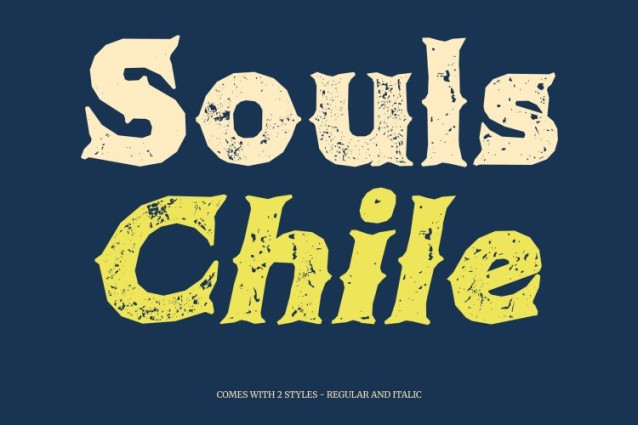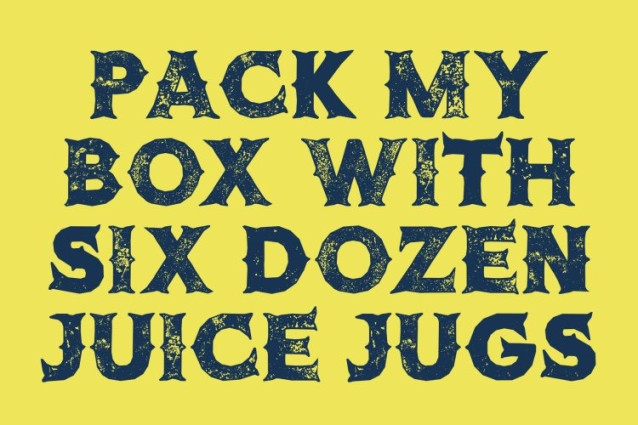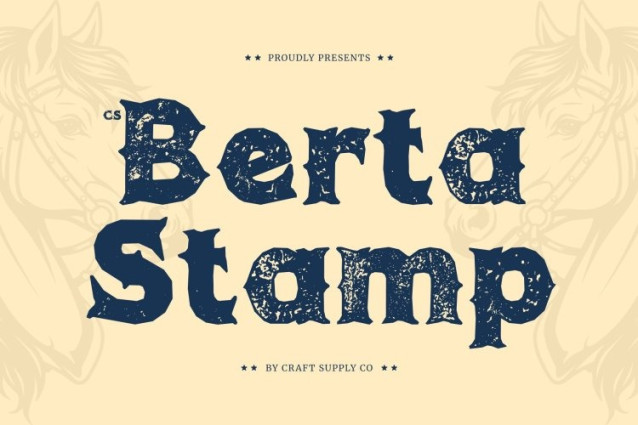
CS Berta Stamp Font
CS Berta Stamp Font This preserves the classic Tuscan style while adding a handcrafted, stamped texture that enhances its retro aesthetic. The sharp, decorative serifs and cross-line details now carry subtle irregularities and distressed edges, giving the font the feel of traditional woodblock or letterpress printing.
Textured Letterforms for Artistic Impact
Each glyph displays a slightly worn, inked texture, creating depth and a tactile quality reminiscent of vintage signage and old posters. The bold shapes remain commanding, while the stamp effect adds character, authenticity, and a handcrafted flair that makes the font feel both historic and visually lively.
Ideal for Retro, Vintage, and Nostalgic Projects
This is perfect for posters, branding, packaging, signage, and editorial designs that want to capture the spirit of the past. Its combination of Tuscan elegance, bold display presence, and textured, vintage style makes it ideal for designs that seek a nostalgic yet artistic statement.
A Timeless Blend of Drama and Old-School Flair
With its stamped texture, now bridges classic retro aesthetics and modern design needs. It conveys strength, style, and authenticity making every headline, logo, or display layout feel distinct, memorable, and full of personality.